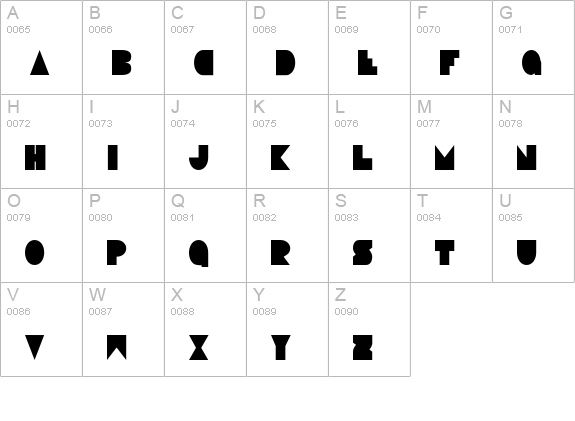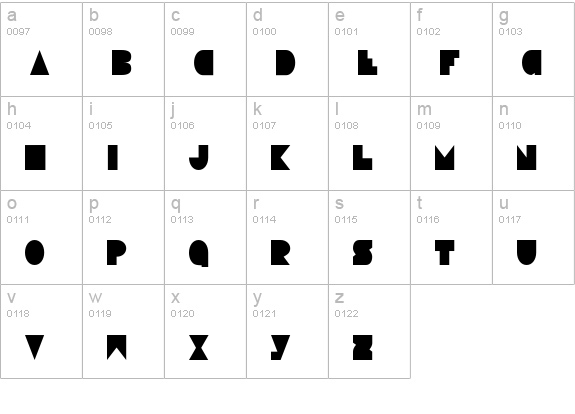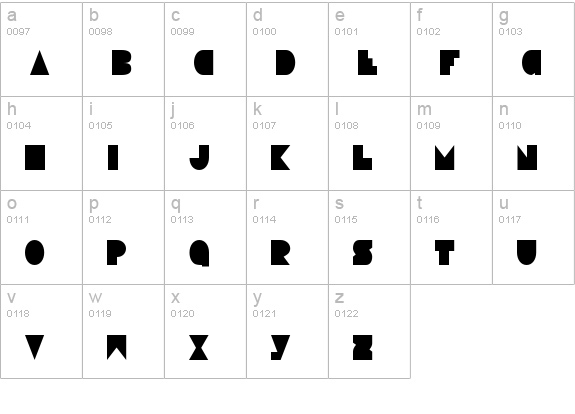
Disco Deck Condensed is a distinctive, condensed-width variant in the Disco typeface family \xE2\x80\x94 well suited to design and typography projects.
Disco Deck Condensed font is a sleek and stylish typeface that exudes a retro disco vibe with its bold and condensed letterforms. This font is perfect for creating eye-catching headlines, posters, and branding materials that demand attention. Its unique design captures the essence of the disco era, making it a perfect choice for projects that require a touch of nostalgia and fun. The best part is that Disco Deck Condensed font is available for free download at FontsMarket.com. You can easily add this versatile and dynamic font to your collection without any cost, allowing you to enhance your designs with a touch of retro flair. Don't miss out on the opportunity to elevate your projects with the vibrant energy of Disco Deck Condensed font – download it today and let your creativity shine!